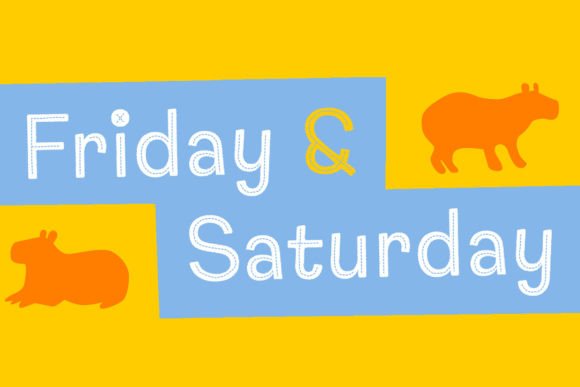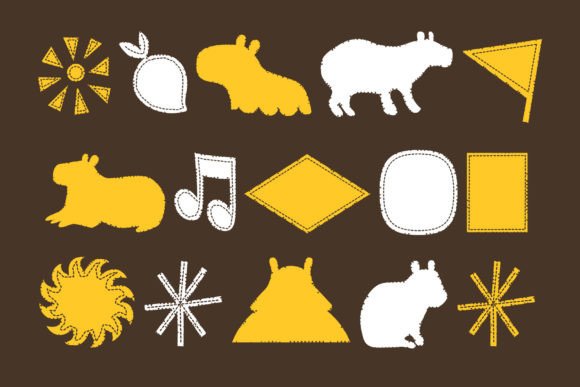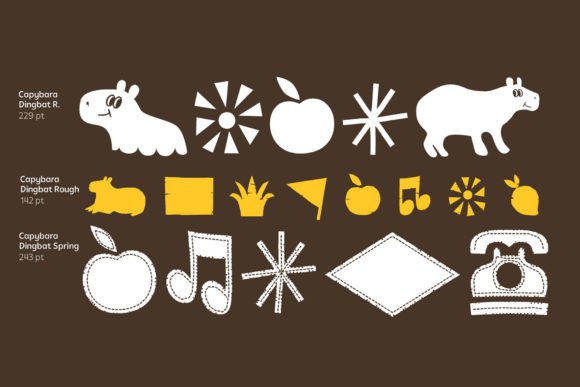
The Ultimate Guide to Capybara Font: Adding Whimsy to Your Designs
I’ll never forget the time I was working on a project for a children’s book, and I just couldn’t find the right font to match the playful tone of the story. The client wanted something fun, yet elegant, and I was determined to deliver. That’s when I stumbled upon the Capybara Dingbata font, and it completely transformed my design. In this article, I’ll share my experience with this charming font, its features, and how to make the most of it in your designs.
What is Capybara Font?
Capybara Dingbata is a fun and playful font that features cute capybara illustrations and other unique symbols. It comes in three different styles: Regular, Rough, and Spring. The Regular style is clean and smooth, the Rough style has a textured look, and the Spring style adds a lively, fresh feel to the designs. This font is perfect for adding a touch of whimsy to any project!
- ✨ The capybara illustrations are adorable and add a unique touch to any design.
- ✅ The font comes in three different styles, making it versatile for various projects.
- 🎉 The Spring style is perfect for Easter or spring-themed designs.
- 💻 The font is easy to read and works well for both headings and body text.
While I love the Capybara font, there are a few things to keep in mind:
- 🤔 The font may not work well for very formal or professional projects, as it’s quite playful.
- ⚠️ Some of the illustrations may not be suitable for all audiences, so use discretion when choosing the font for your project.
The Capybara font was inspired by the adorable capybaras that roam the grasslands of South America. The designer, a lover of animals and whimsical illustrations, wanted to create a font that would bring a touch of playfulness to any design. With its unique illustrations and three different styles, the Capybara font is sure to delight designers and crafters alike.
Q: What is the Capybara font best used for?
A: The Capybara font is best used for playful and creative projects, such as children’s books, party invitations, and social media graphics.
Q: Is the Capybara font suitable for all audiences?
A: While the Capybara font is generally suitable for all audiences, some of the illustrations may not be suitable for very young children or professional projects.